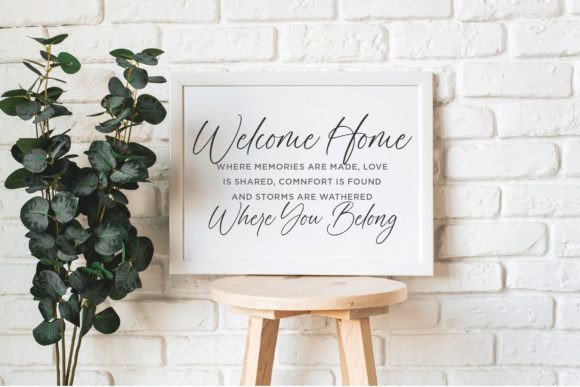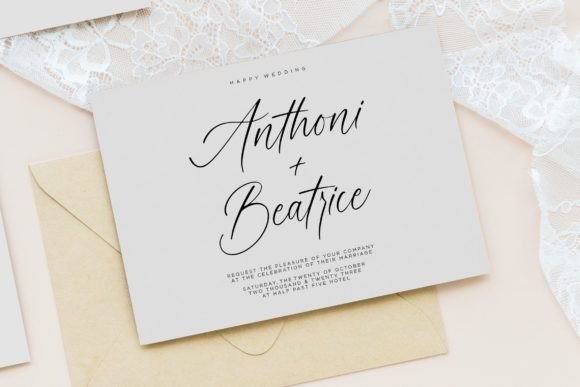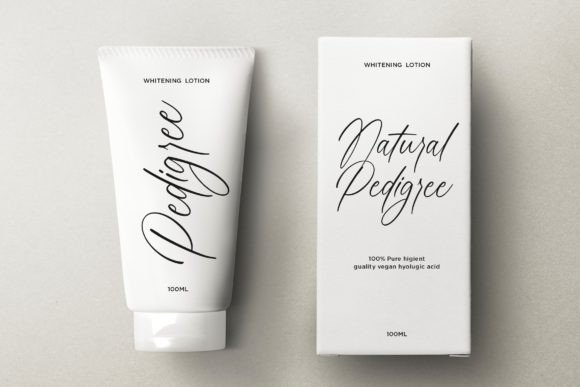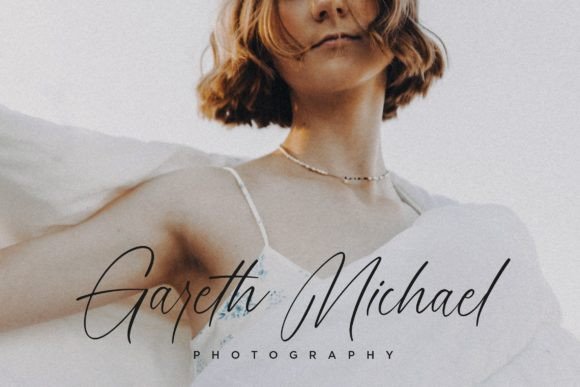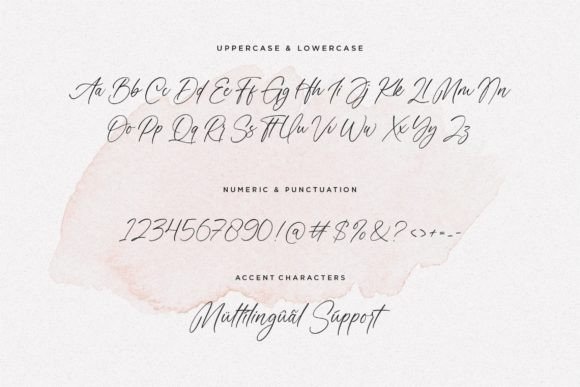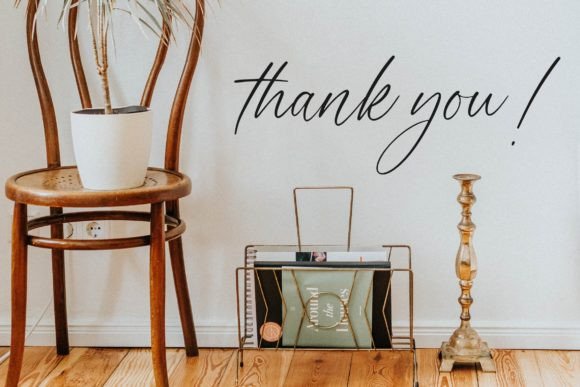
Introduction to Rainbow Marbles Font
Have you ever stumbled upon a design element that makes your creative project pop? For me, it’s those magical moments when a font comes together with a background to create an unbeatable visual impact. That’s exactly what happens when you pair the Rainbow Marbles Font with a transparent background – pure magic.
As a designer, you’re always on the lookout for high-quality design resources that can elevate your work. The Rainbow Marbles Font is one such treasure, perfect for adding a touch of whimsy to your branding projects, magazines, social media, or even wedding invitations. Its stunning script style makes it an instant favorite among designers, and with a free download available, you can get started right away.
Whether you’re a seasoned pro or a beginner, the Rainbow Marbles Font is a valuable addition to your design toolkit. Its versatility and unique charm make it an excellent choice for any creative project, and with its transparent background option, you can easily customize it to suit your needs.
Key Features of Rainbow Marbles Font
- Unique Design:** The Rainbow Marbles Font is a creative and playful design resource that adds a touch of whimsy to any project.
- Transparent Background:** The font’s transparent background makes it easy to use with any design element, allowing for seamless integration into creative projects.
- Resolution-Independent:** The font is designed to be resolution-independent, ensuring that it looks great at any size or resolution.
- Perfect for Digital Projects:** The Rainbow Marbles Font is ideal for digital projects, such as website design, social media graphics, and mobile app design, where a playful and creative touch is needed.
Honest Review: Rainbow Marbles Font
I recently stumbled upon the Rainbow Marbles Font, and I must say it’s a delightful addition to any creative project. The font is a free download, which is always a plus in my book. The quality of the font is high, and it’s perfect for designers looking for a fun, playful touch.
What works well: ✨ The font’s versatility is one of its strongest points. It can be used for a variety of projects, from children’s books to social media graphics. The transparent background is also a nice feature, making it easy to layer over other design elements.
Here are some of my favorite features:
- Fun, playful feel perfect for creative projects
Limitations: ⚠️ While the font is free, it’s not without its limitations. The design is quite bold and eye-catching, which may not be suitable for all projects. Additionally, the font may not be as polished as some paid options.
Overall, I’m impressed with the Rainbow Marbles Font. It’s a great addition to any design resource, and I’m happy to have it in my toolkit. If you’re looking for a fun, free font, I’d definitely recommend giving it a try.
To get the most out of the Rainbow Marbles Font, experiment with different font sizes, colors, and combinations. This font is perfect for creating visually appealing graphics and designs that stand out from the crowd.
The Rainbow Marbles Font is ideal for use in creative projects, such as social media graphics, flyers, posters, and logos. Its unique design and transparent background make it a versatile design resource that can be used in a variety of contexts.